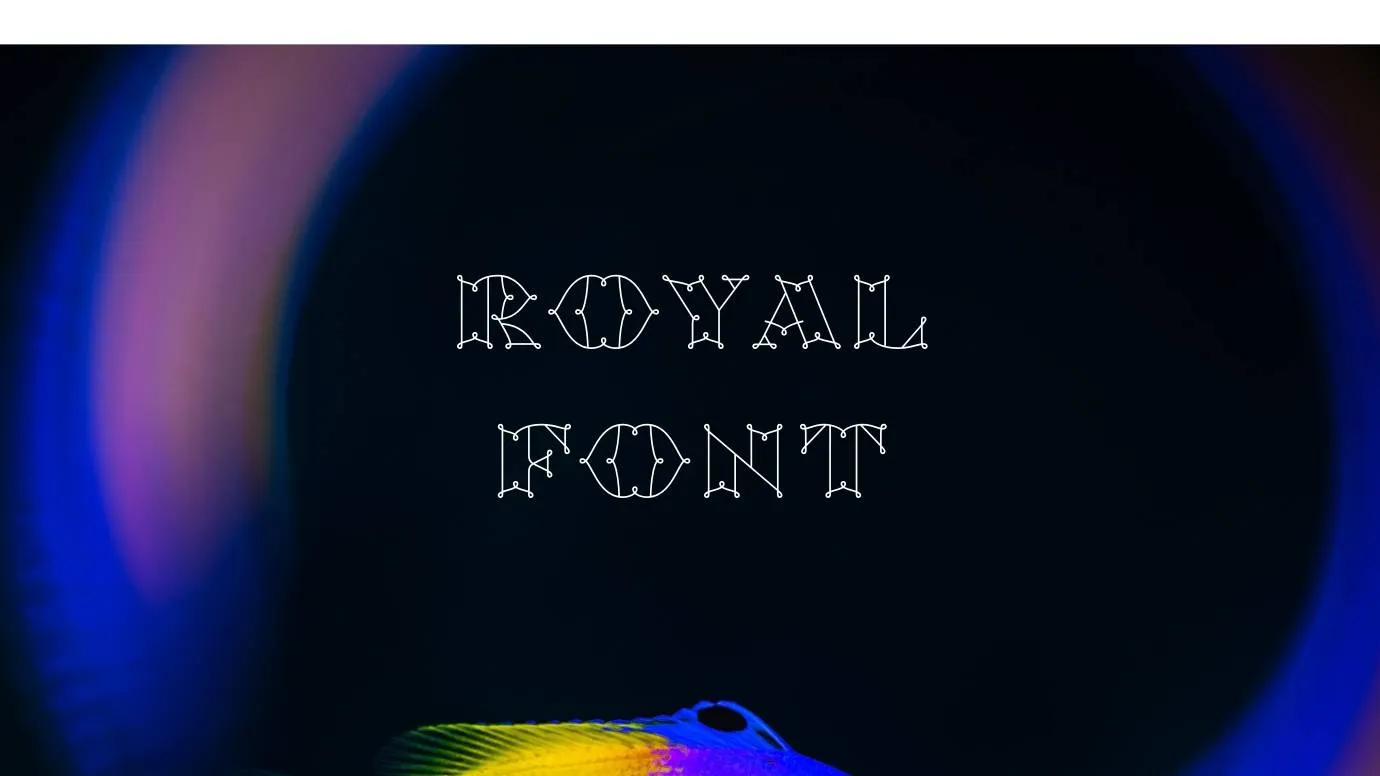
Royal Font Family belongs to the serif typeface family and very suitable font for your fashion-related and luxury branding projects. This font family was designed and shared by Youthlabs Studio.
It is also best for copy-paste functions as well as pairing functions. This font family provides all caps letters, many stylistic alternates, punctuation, icons, and many special characters.